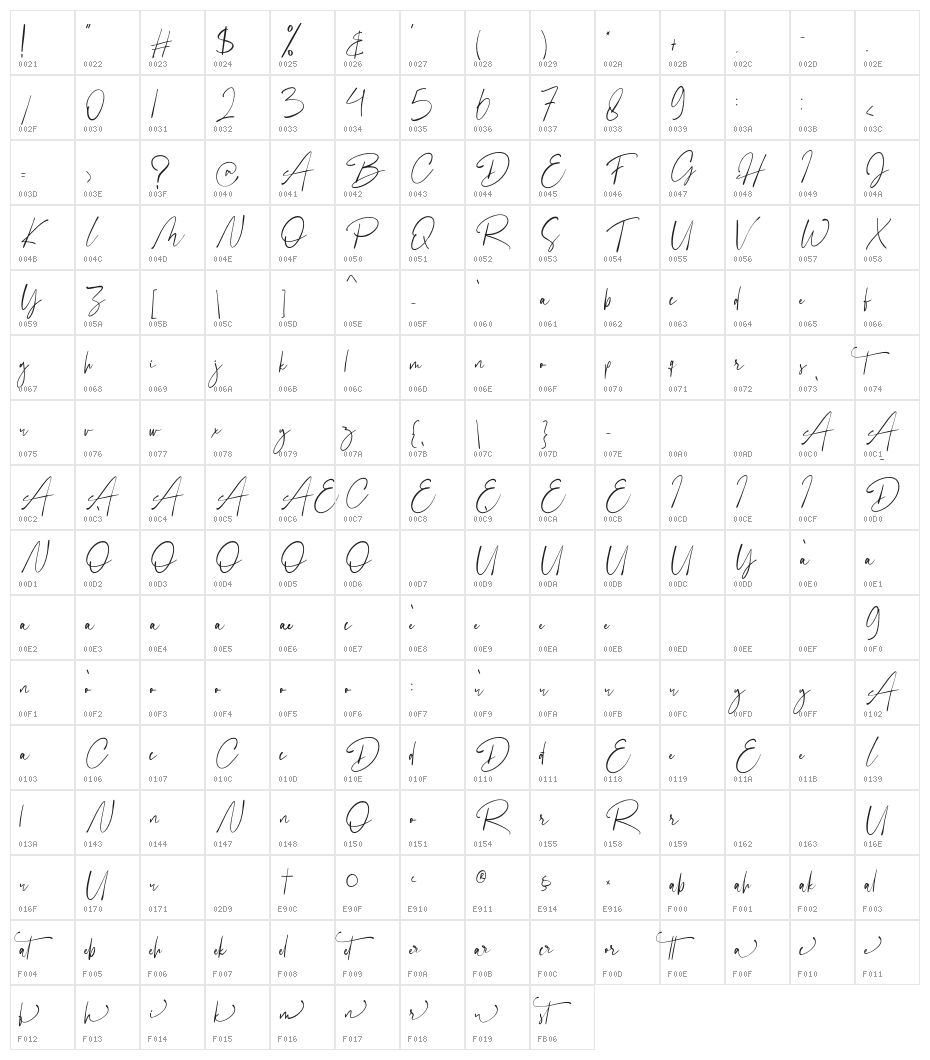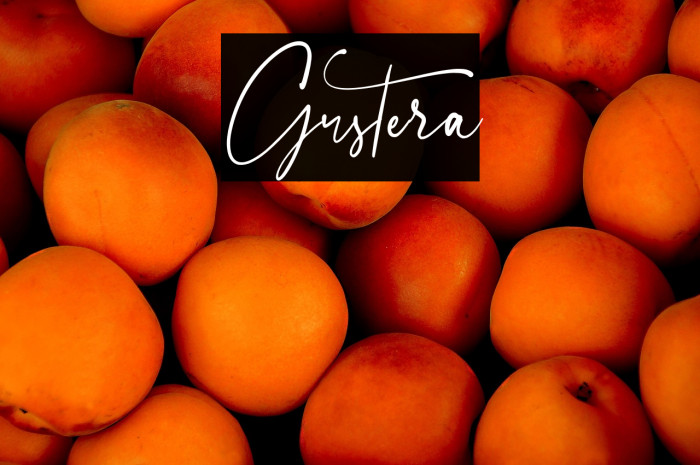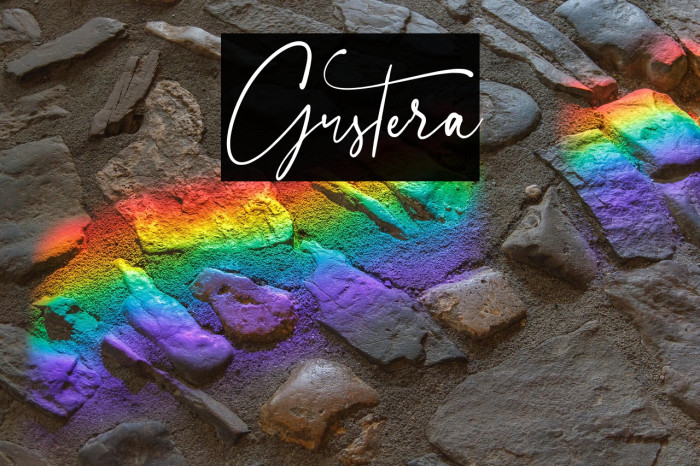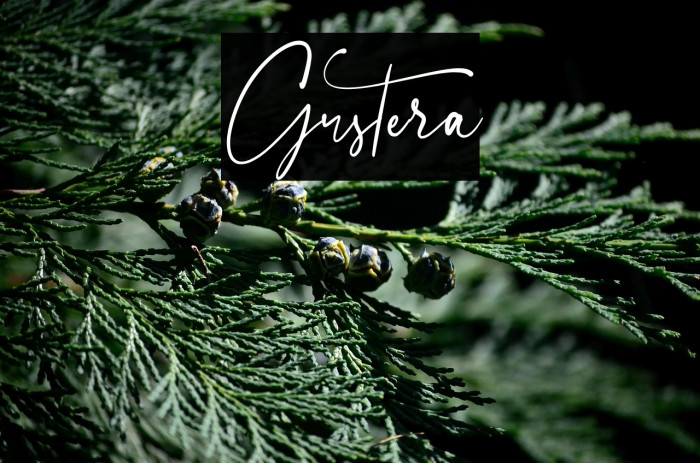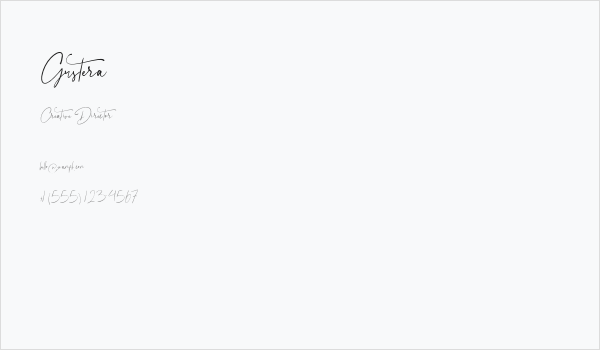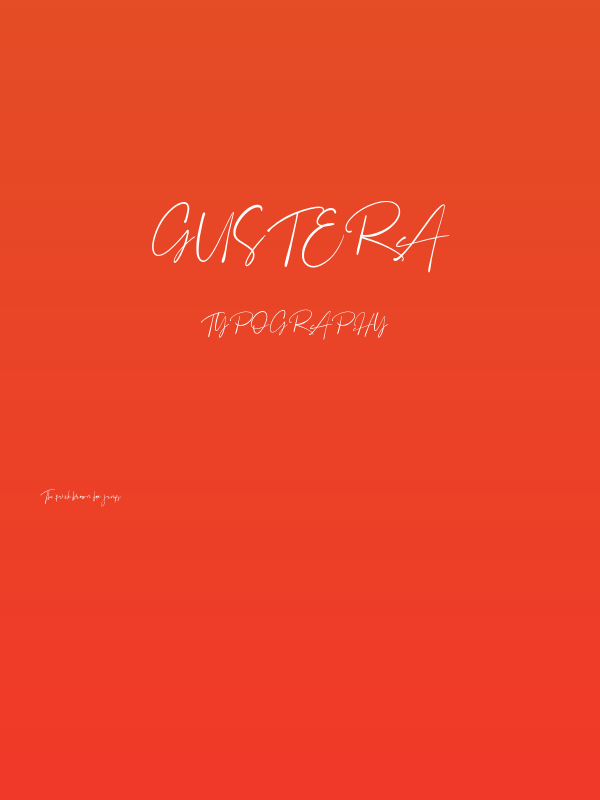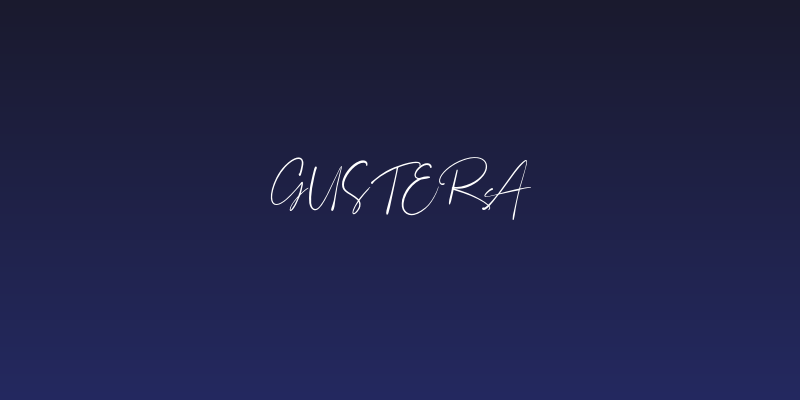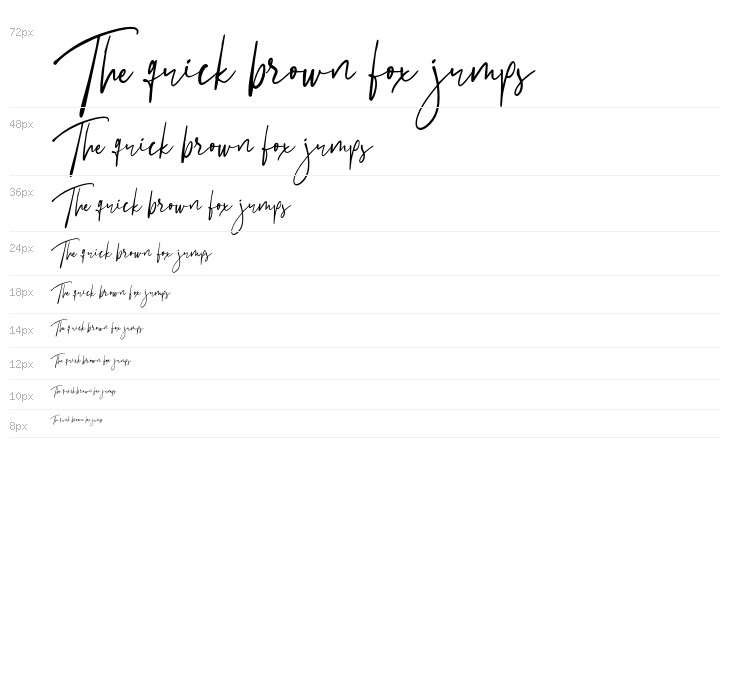
Gustera Font
Gustera Description
This font exudes a sense of elegance and fluidity, characterized by its cursive, handwritten style. The letters are connected in a flowing manner, with a consistent slant that adds to its graceful appearance. The uppercase letters are bold and prominent, while the lowercase letters maintain a delicate and refined look. The numbers and special characters follow the same cursive style, ensuring uniformity across the font. The overall design is reminiscent of classic calligraphy, making it suitable for projects that require a personal touch.
| Overall Style | Classic |
| Use Case | Logos, Invitations, Personal Branding |
| Proposed Projects | Ideal for wedding invitations, greeting cards, personal branding, and elegant logos. |